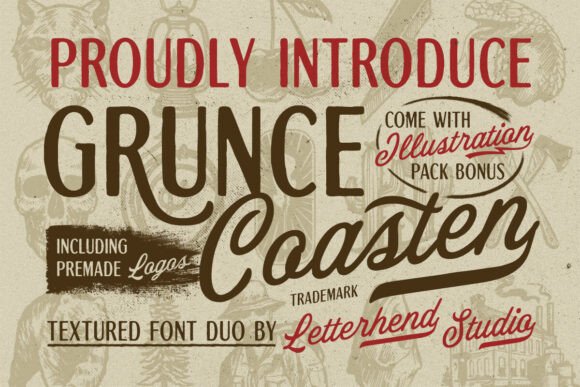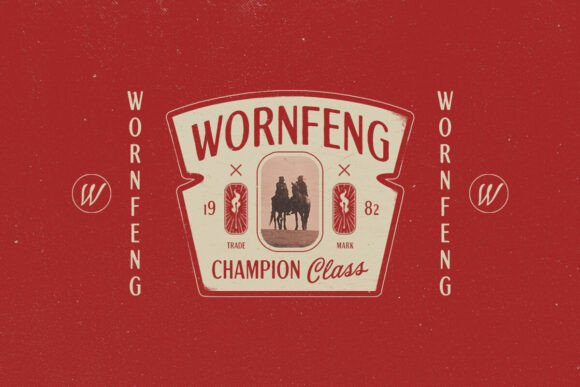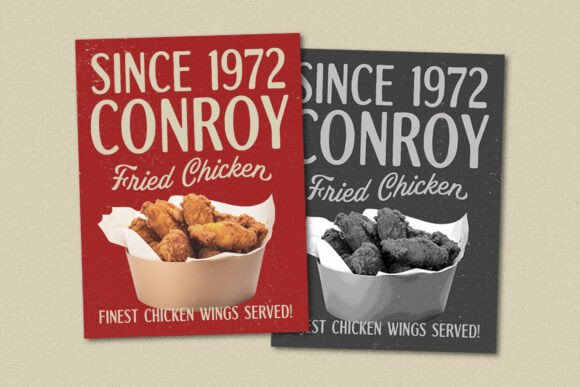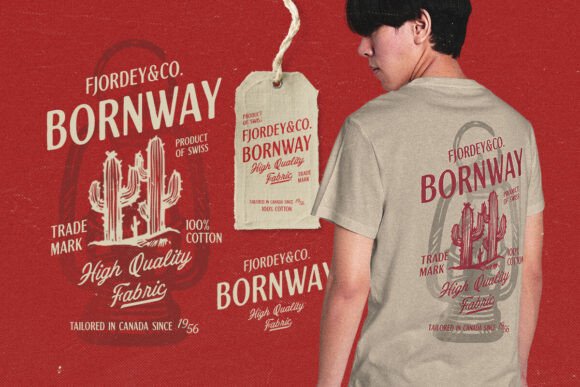
Grunce Coasten Font
About the Grunce Coasten Font
Crafted with precision, the Grunce Coasten Font is ready to bring your ideas to life. Grunce Coasten is a vintage font duo consist of a script paired with a sans serif with a touch of classic look and feel. It comes with bonus illustration!. This type of font perfectly made to be applied especially in logo, headline, signage and the other various formal forms such as invitations, labels, logos, magazines, books, greeting / wedding cards, packaging, fashion, make up, stationery, novels, labels or any type of advertising purpose.
Grunge Coasten’s vintage aesthetic makes it ideal for projects requiring a nostalgic or retro feel, particularly in headlines, logos, and short-form text on packaging or posters. Its strong personality shines in branding for boutique businesses, artisanal products, or vintage-inspired campaigns. Avoid using it for large blocks of body text; the script, in particular, can become difficult to read at smaller sizes.
The sans-serif component works better for short supporting text, but for optimal readability, consider pairing it with a clean, neutral sans-serif like Helvetica or a legible serif such as Garamond for body copy. For a more playful effect, a rounded geometric sans-serif would complement the vintage vibe. The script pairs well with a minimalist sans-serif for a modern take on vintage.
The overall personality is sophisticated yet approachable, blending a touch of rebellion with classic elegance. This makes it suitable for brands that wish to convey both heritage and a contemporary edge.
Grunce Coasten Font Usage Examples
Grunce Coasten Font Example